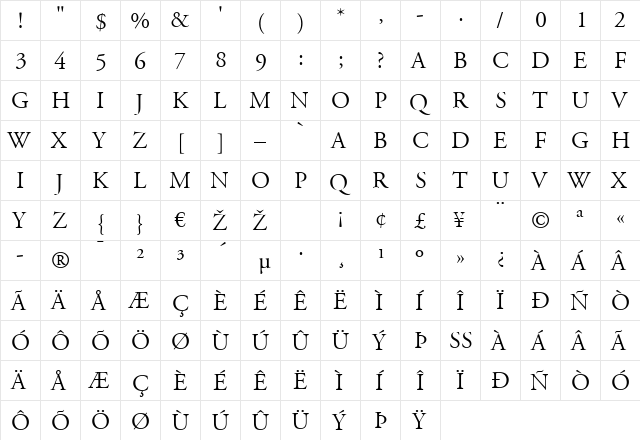
AGaramond LT Titling Regular
Design Context for AGaramond LT Titling Typeface
AGaramond LT Titling takes a measured approach to typography — its balanced proportions and neutral character make it a reliable workhorse for both digital and print work. The delicate stroke weight brings airiness and refinement to layouts.
Pro Tip: Use AGaramond LT Titling in both headline and body roles to test its range before committing to a single application.